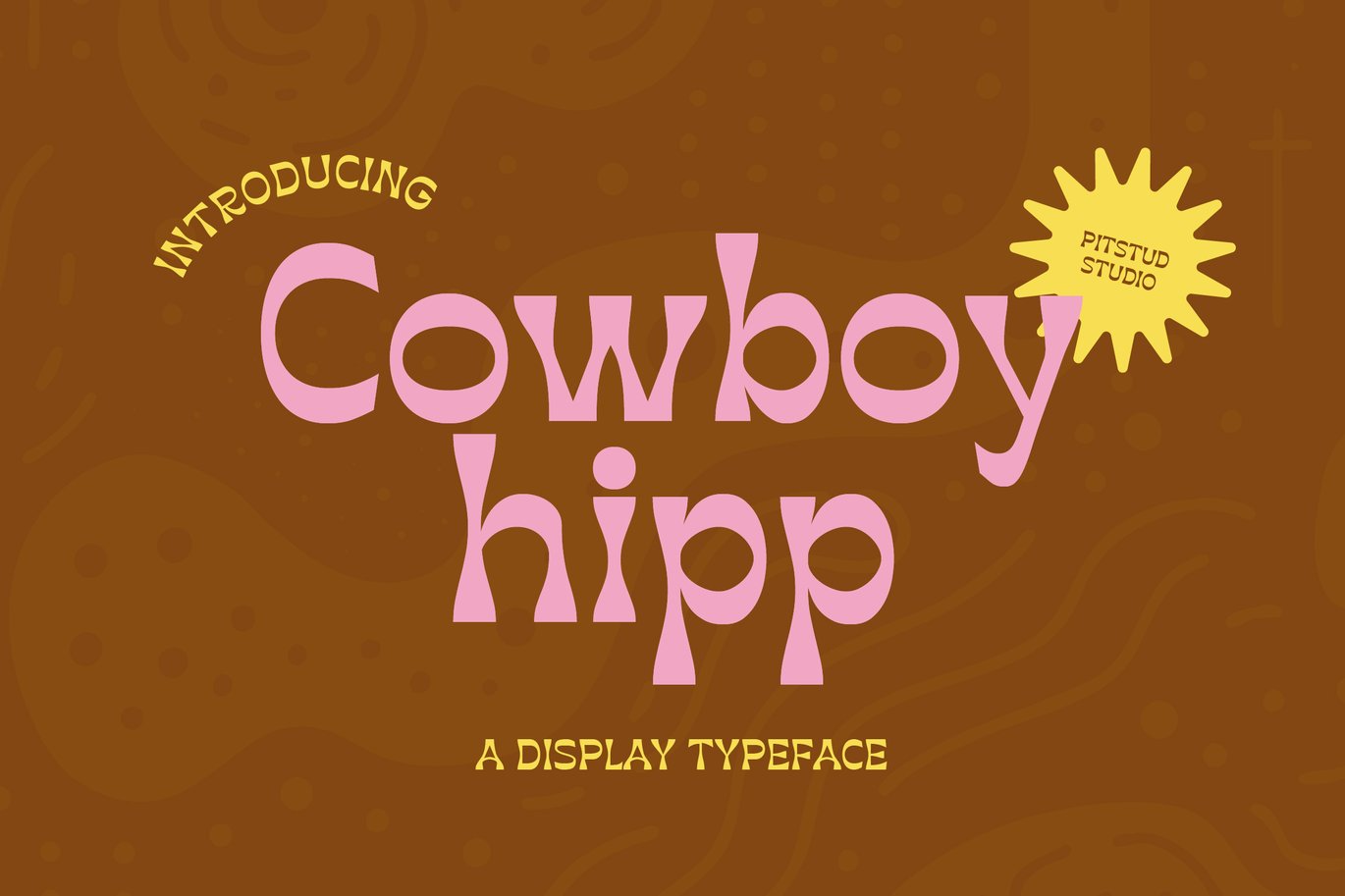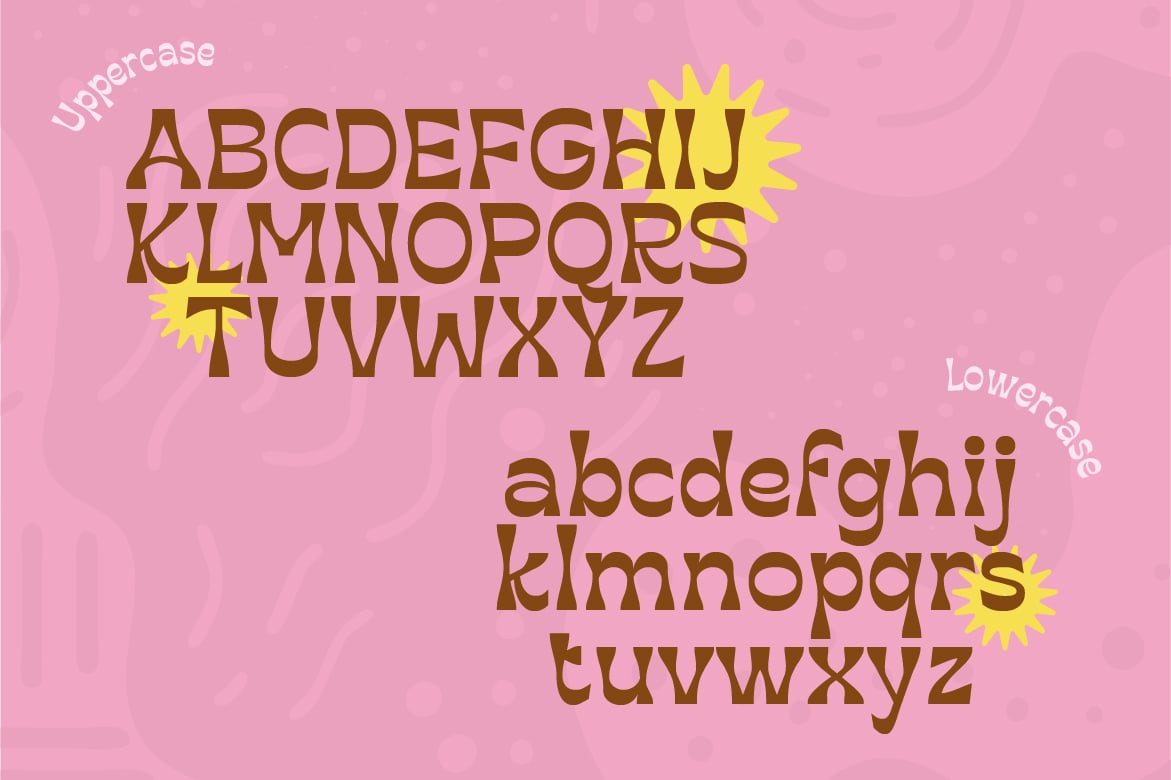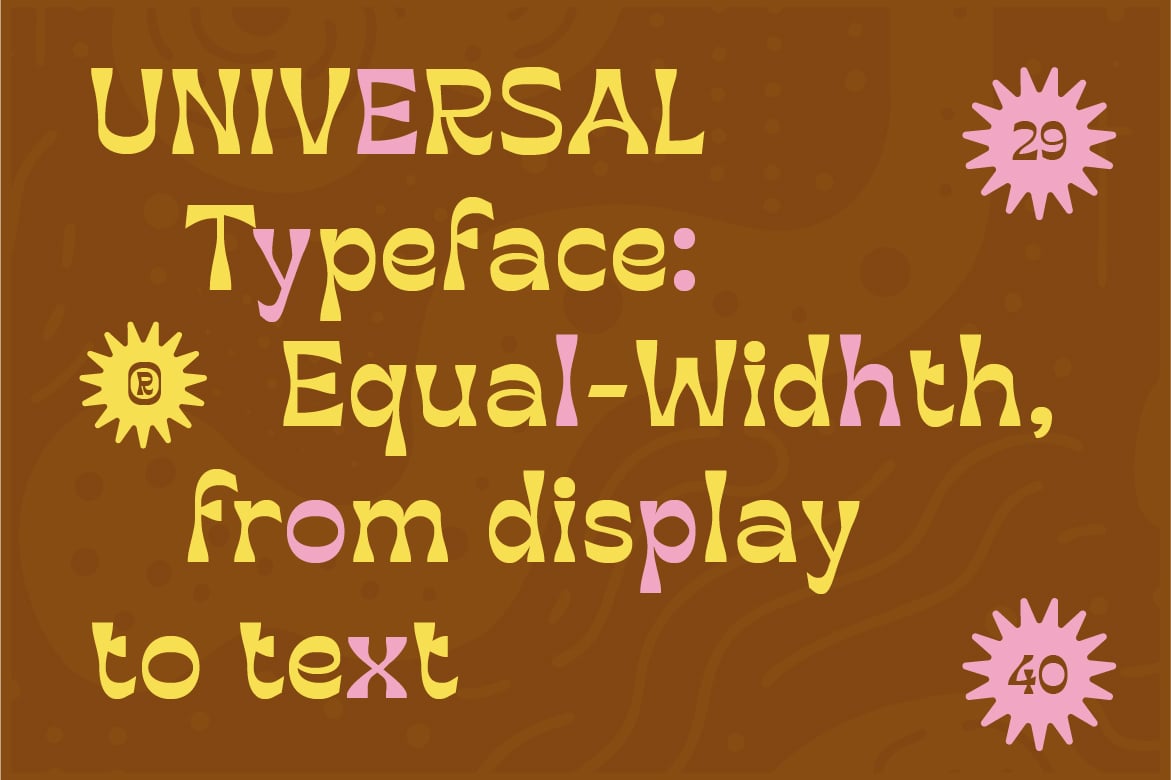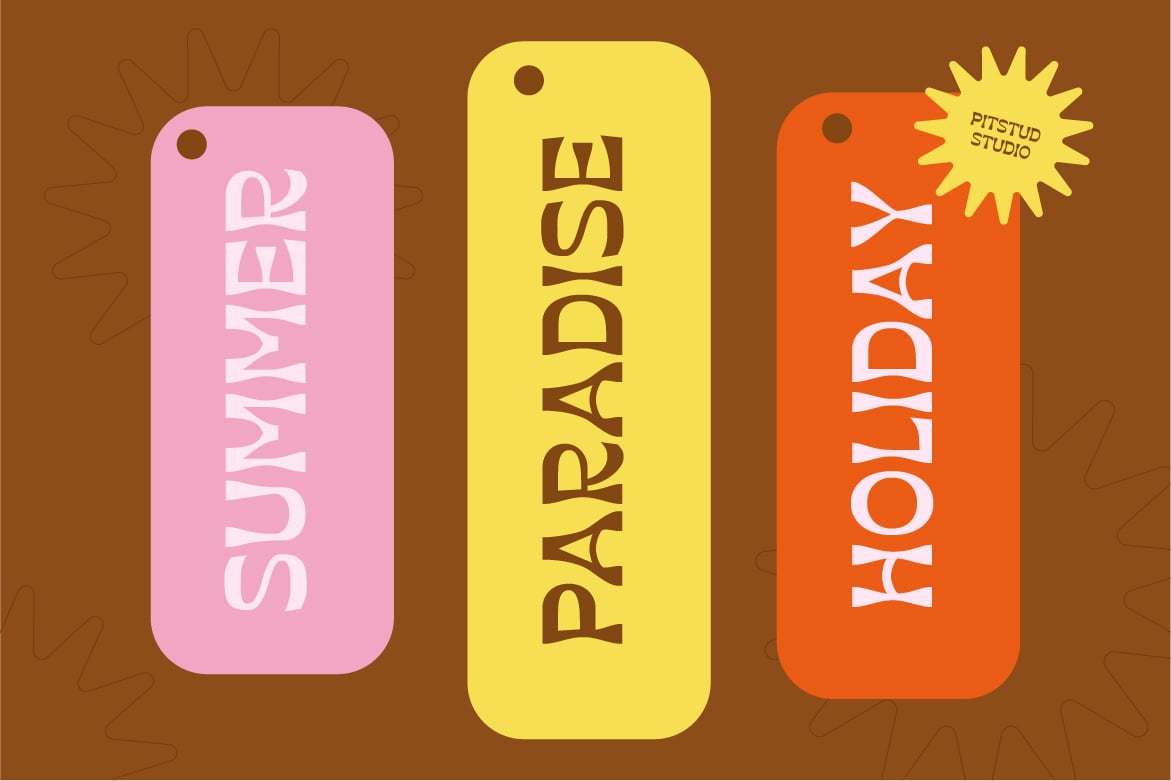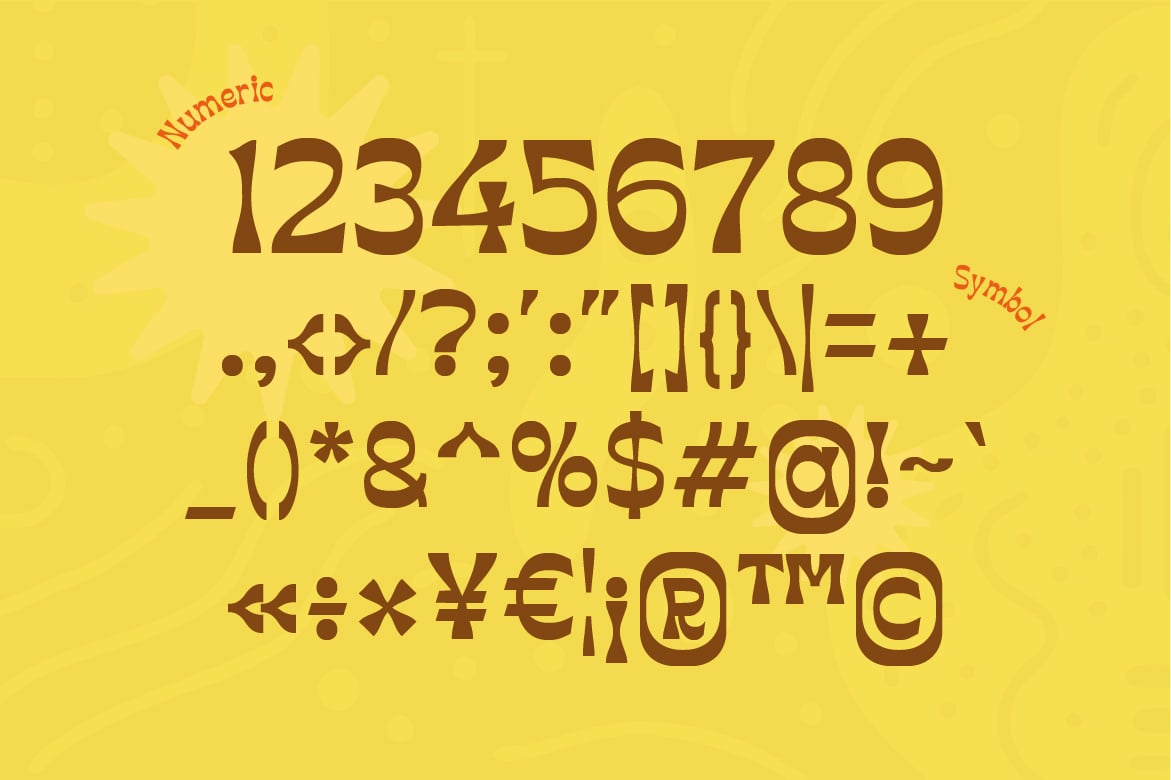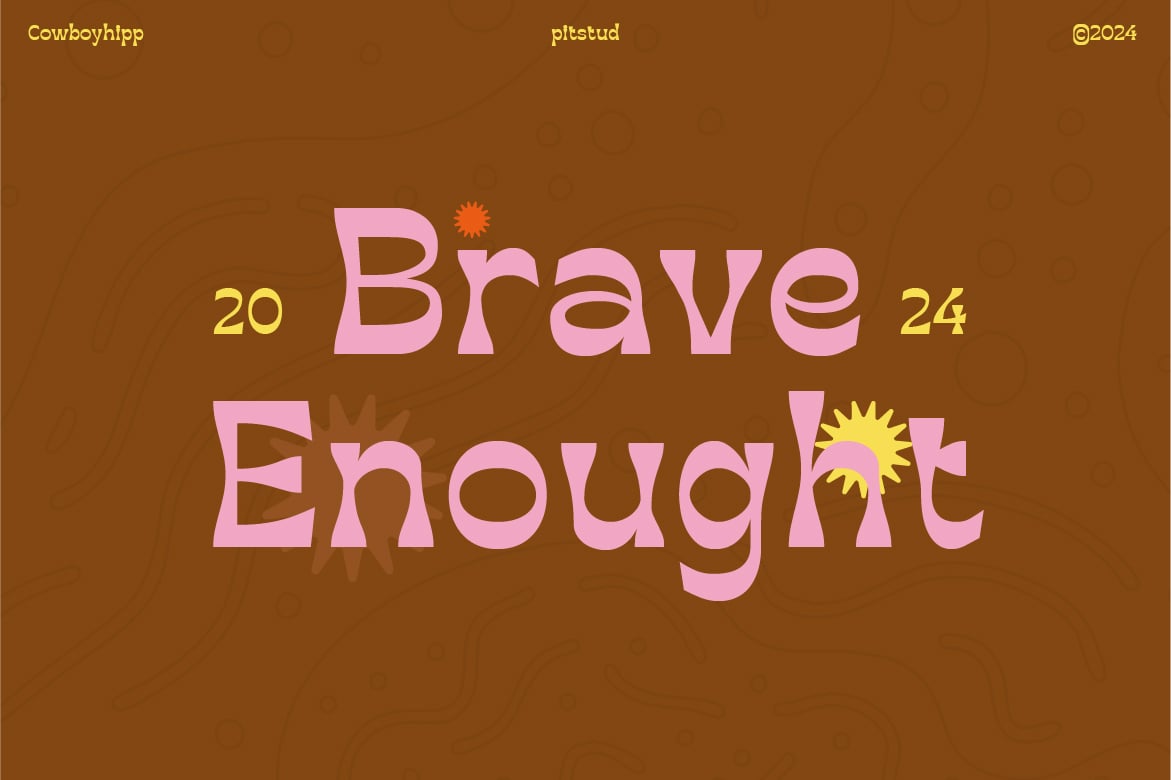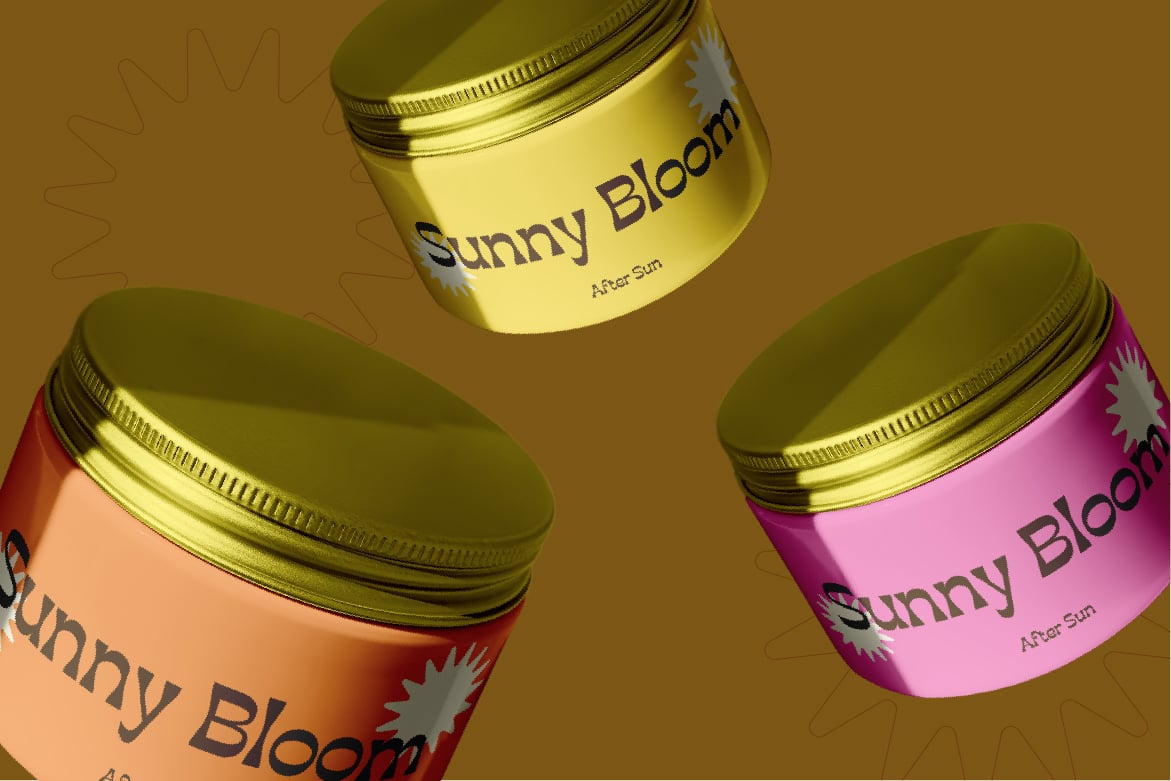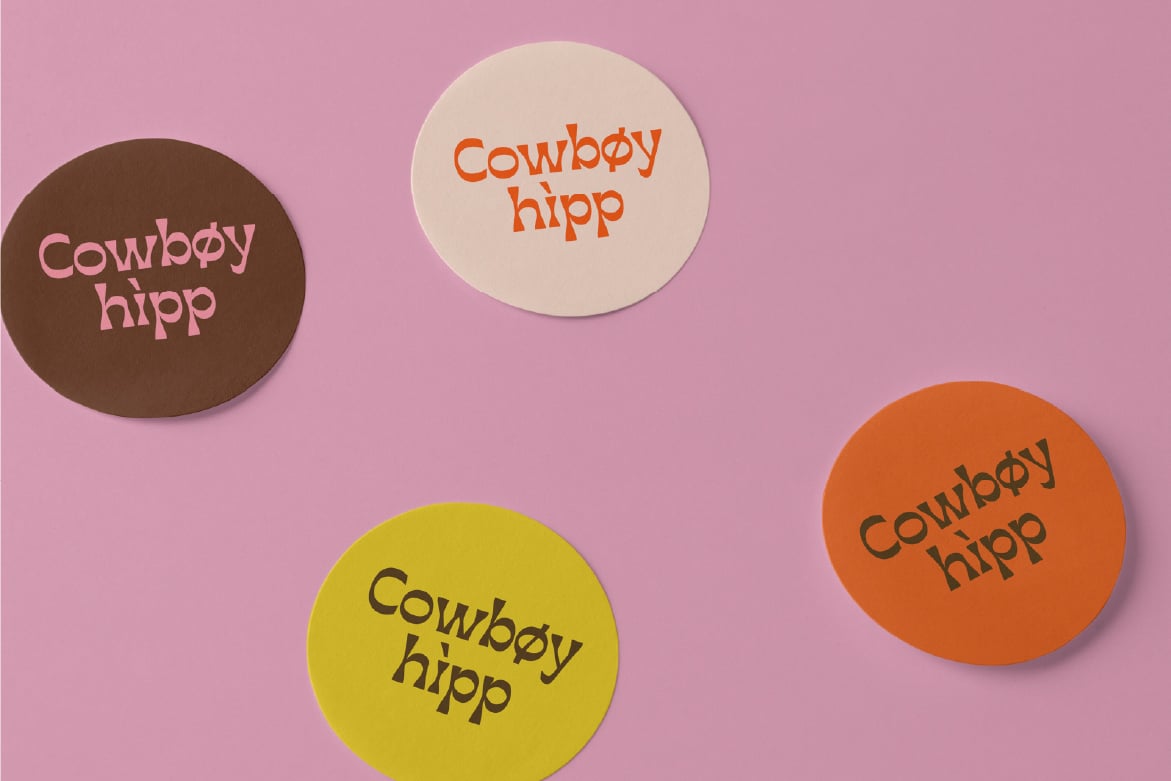
Retro Western Font – Cowboyhipp
Cowboyhipp – Retro Western Font
Step back in time with our Cowboyhipp – Retro Western Font, a beautifully crafted typeface inspired by the rugged aesthetics of the Wild West! Perfect for creating a nostalgic vibe in your designs, this font adds a touch of classic charm and adventure to any project.